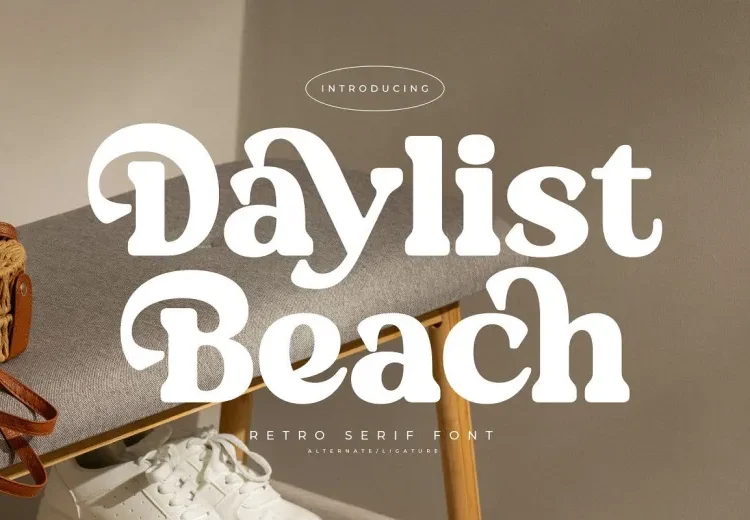
Daylist Beach Font
Daylist Beach is a retro serif font crafted by Letterena, designed to bring a touch of luxury and nostalgia to a wide array of creative projects. Its elegant yet playful design makes it an excellent choice for those looking to add a vintage flair to their work. The font’s versatility shines through in its suitability for various applications, from logos and branding to homeware designs and product packaging. Whether you’re designing for mugs, quotes, or shopping bags, Daylist Beach offers a refined yet approachable aesthetic that elevates everyday items into something special.
Beyond branding and packaging, Daylist Beach is also perfect for fashion and lifestyle projects. Its luxurious serif style adds sophistication to T-shirts, book covers, and name cards, making them stand out with a timeless appeal. The font’s graceful curves and distinctive character make it an ideal choice for greeting cards, invitation cards, and labels, adding an extra layer of elegance to your designs. Daylist Beach also works beautifully for photography watermarks and other occasions where a touch of retro charm and luxury is desired.